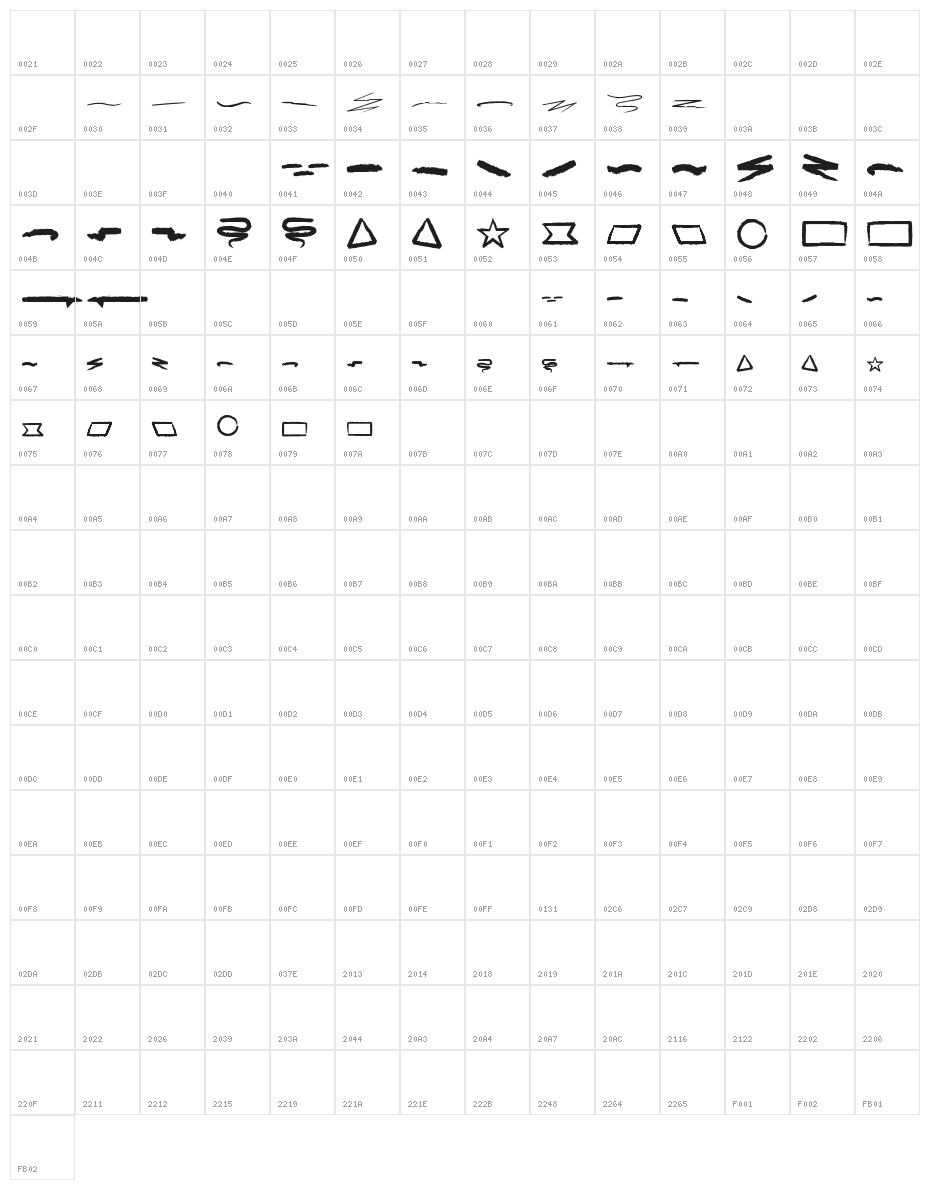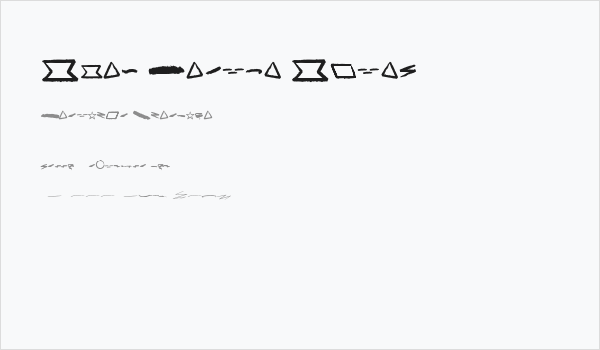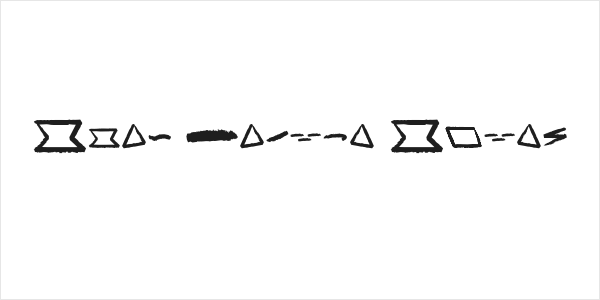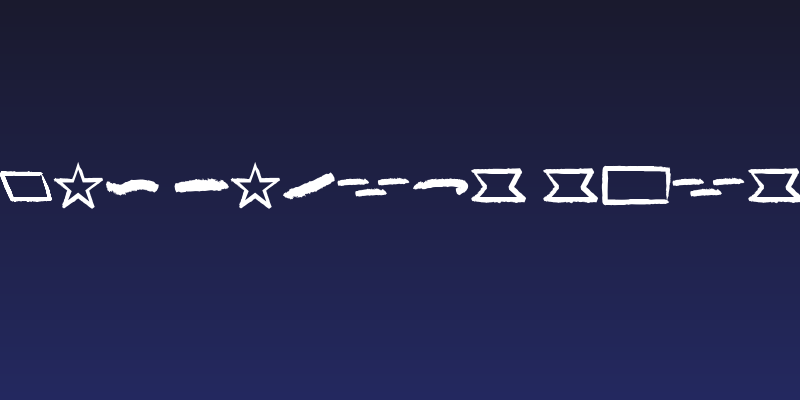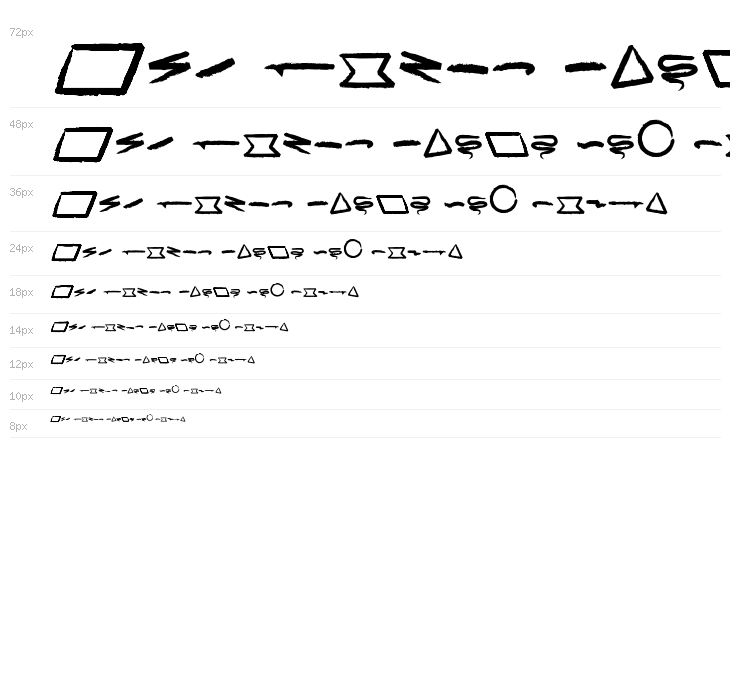
Surf Breaks Swash Font
Surf Breaks Swash Description
This design features a series of abstract, wave-like shapes and symbols that evoke a sense of movement and fluidity. The elements are bold and dynamic, with a hand-drawn appearance that suggests spontaneity and creativity. The use of geometric shapes like triangles, stars, and circles adds a playful and modern touch. The overall style is reminiscent of surf culture, with a laid-back and adventurous vibe. The lines are thick and varied, creating a sense of rhythm and energy. This design is not a traditional font but rather a collection of decorative elements that can be used to enhance visual projects.
| Use Case | Logos, Posters, Decorative elements |
| Proposed Projects | Ideal for surf-themed posters, beach party invitations, or any project needing a lively, oceanic touch. |